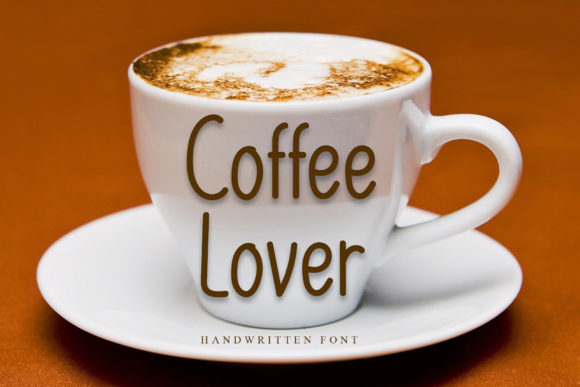
Dive into the enchanting realm of Coffee Lover Font, a script font that exudes warmth and charm. Its graceful curves dance across the page, evoking the cozy ambiance of a coffee shop on a rainy day. Whether you're crafting love letters, designing heartfelt invitations, or creating whimsical branding, Coffee Lover Font is your perfect companion.
With its natural and unique style, Coffee Lover Font effortlessly adds a touch of elegance to any project. Its handwritten feel brings a personal touch, making your words come alive on the page. Whether you're a seasoned designer or just starting, this font is incredibly easy to use, allowing you to create stunning designs in no time.
Transport yourself to a world of romance and creativity with Coffee Lover Font. Its delicate strokes and flowing lines capture the essence of handwritten love letters, adding a touch of nostalgia to your words. Whether you're expressing your deepest emotions or simply sending warm wishes, this font will make your message truly unforgettable.
But Coffee Lover Font's versatility extends far beyond love letters. Its charm shines through in branding, invitations, and various design projects. Its elegant yet playful style adds a touch of whimsy to logos, posters, and social media graphics. Create eye-catching designs that leave a lasting impression on your audience.
With Coffee Lover Font by dazzlinggleam, the possibilities are endless. Its user-friendly nature makes it accessible to designers of all levels, while its unique style and versatility open up a world of creative opportunities. Embrace the beauty of handwritten charm and let Coffee Lover Font elevate your designs to new heights.